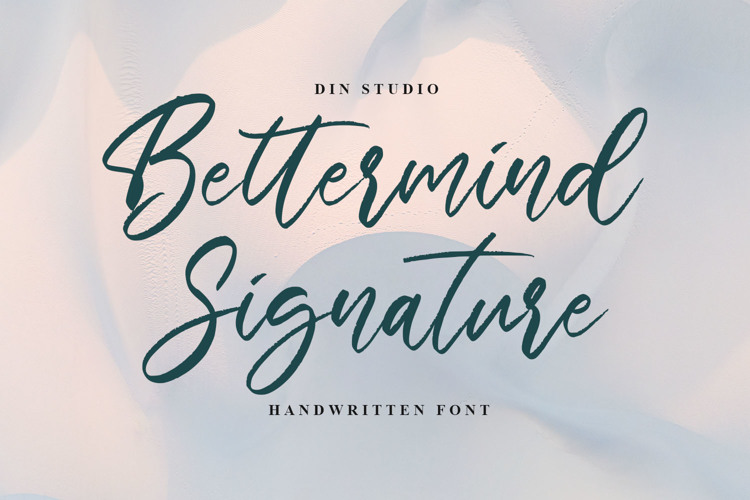
Bettermind Signature Personal U Font
Bettermind Signature is a handwritten font. With a classy and beautiful handwritten style, it brings a classy and chic typeface. Made for any professional projects. Bettermind signature is best used for weddings invitation, ads, branding, logotype, and quotes.